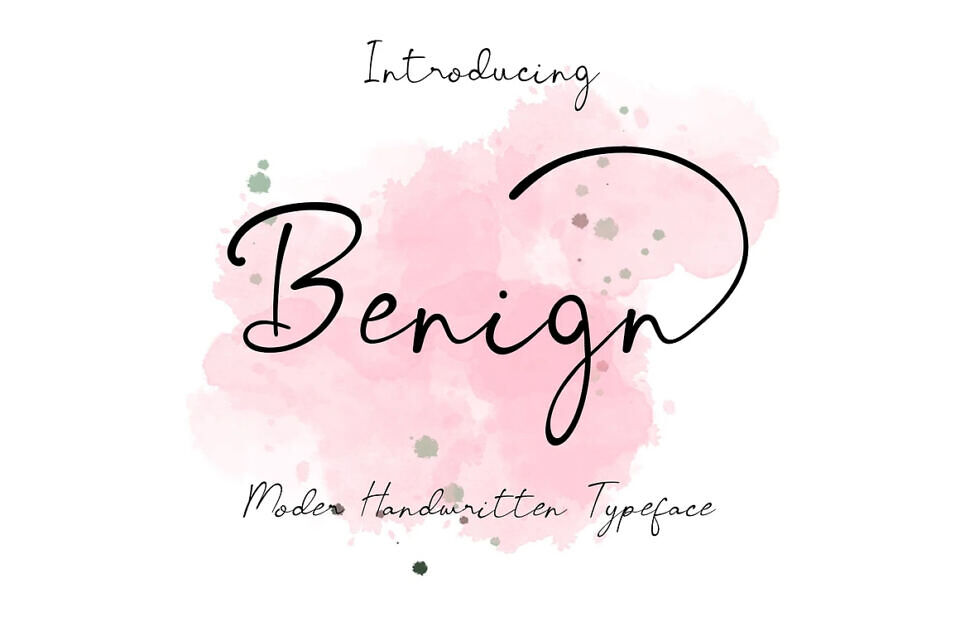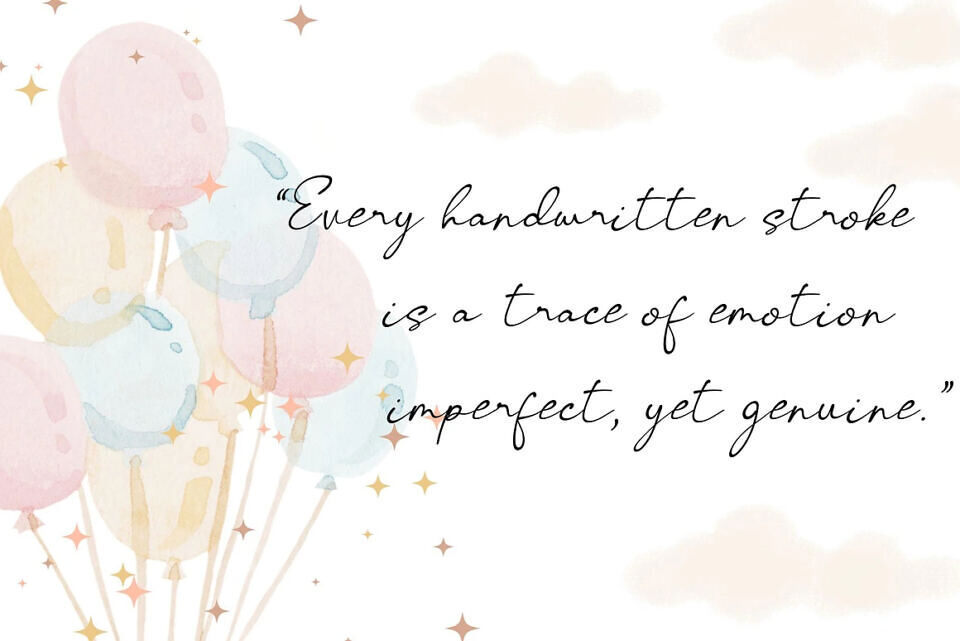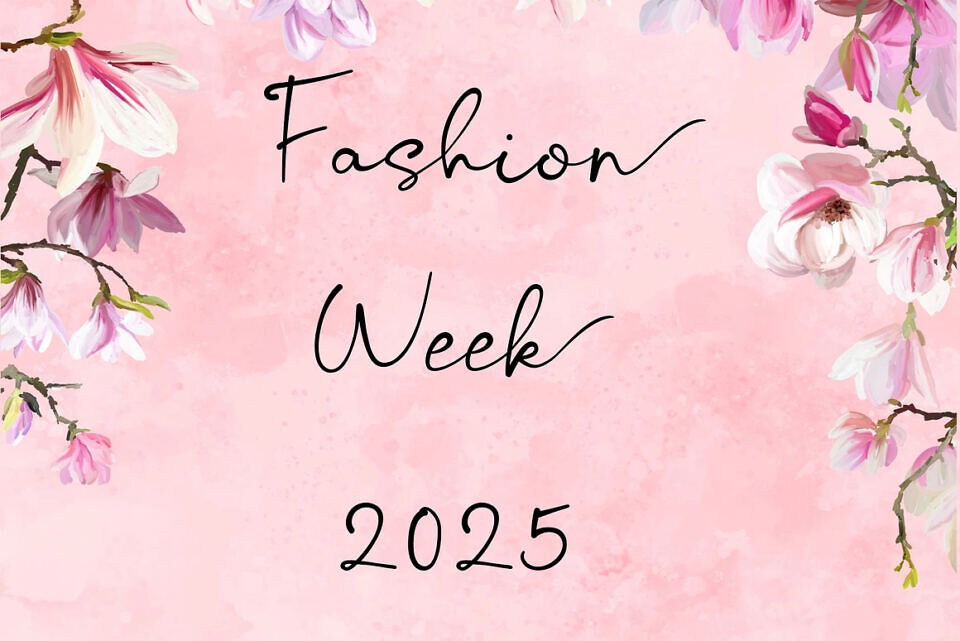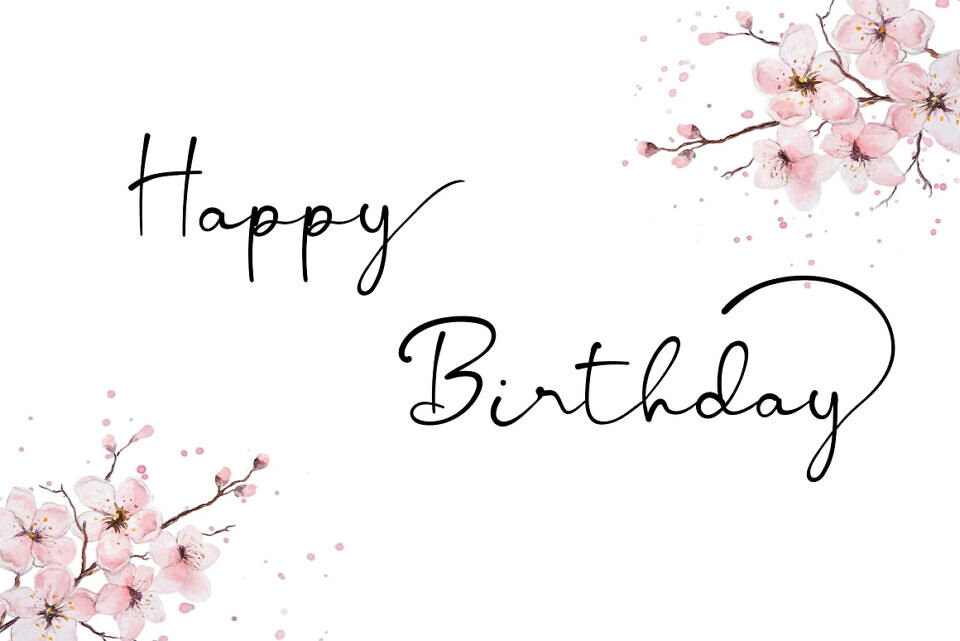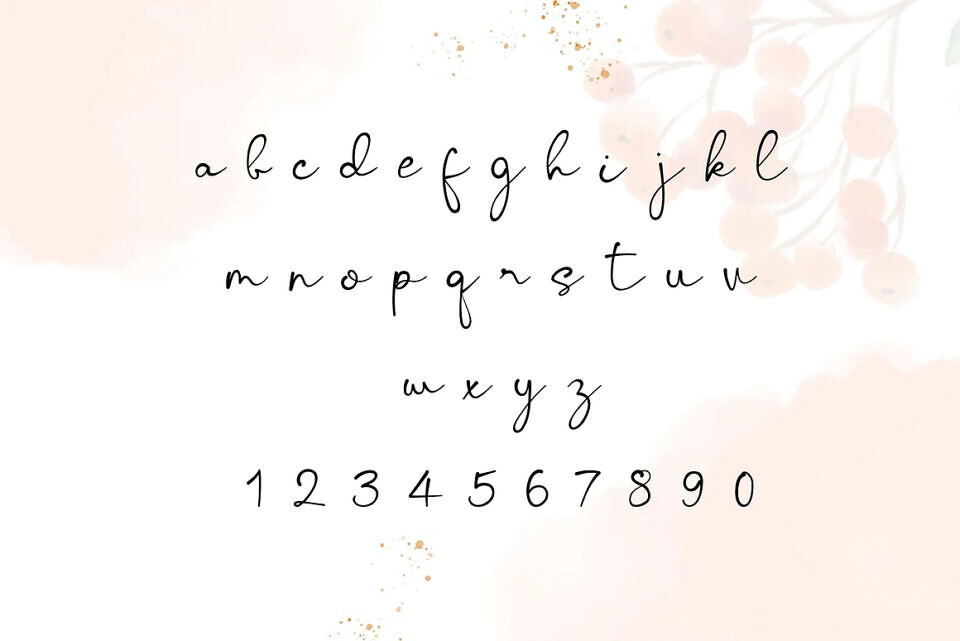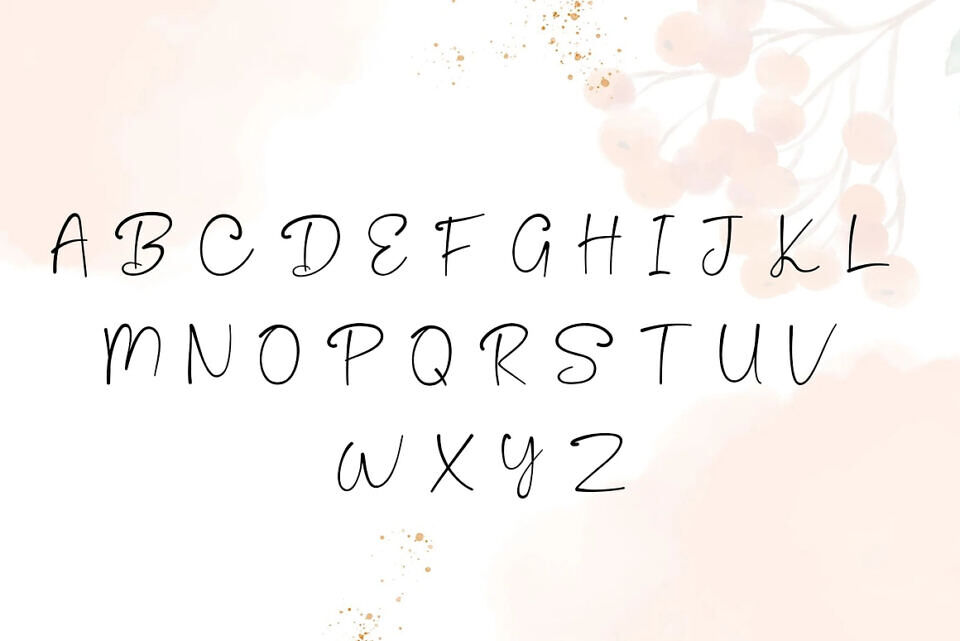
Benign is a handcrafted handwritten font with smooth, flowing strokes. It’s a perfect choice for creative projects such as invitations, logos, headings, and any design that needs a personal touch. With its warm and friendly feel, Benign helps you deliver messages in an honest and heartfelt way.